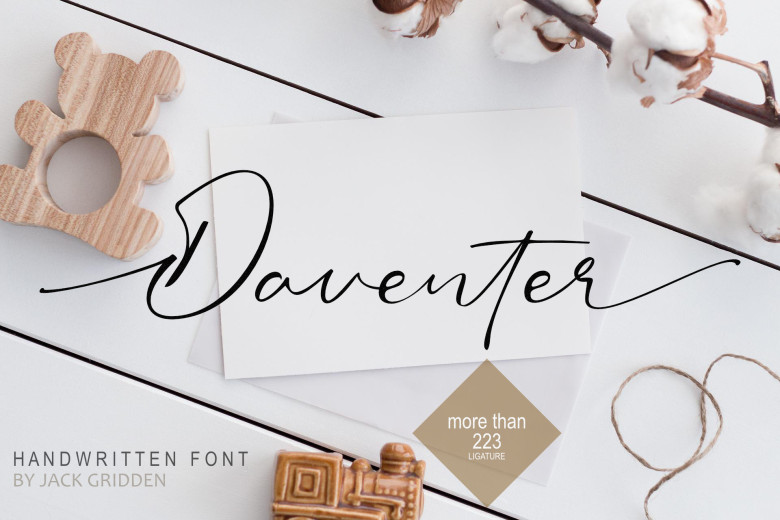
Daventer Font
Daventer is a magical script font handmade with a little bit of class. Whether it’s fonts for Instagram you’re seeking or calligraphy scripts from which to copy – this font gives whichever fresh idea comes into your mind the makings of true art. Daventer is encoded using PUA so that you can easily get at any of the glyphs and swashes.
Daventer Handwritten Font